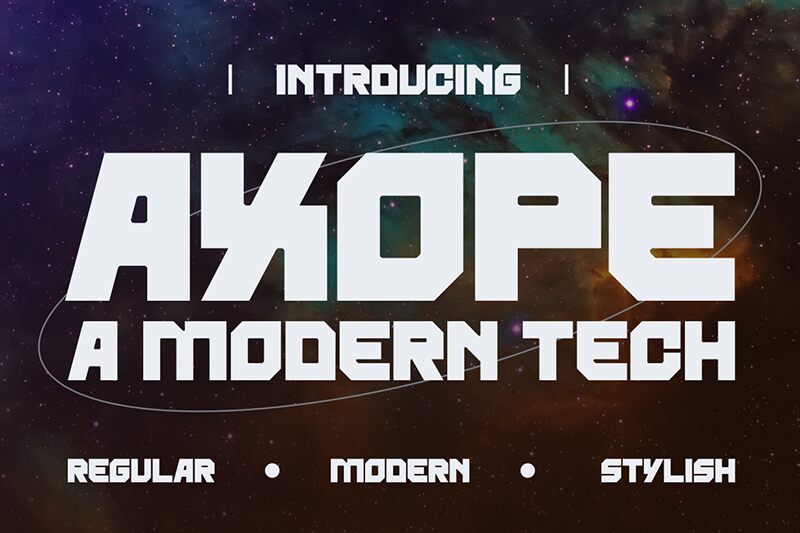
AXOPE
Axope font by Gilang Ternadho of Maikohatta is a bold techno display font with a unique futuristic and geometric personality. With an industrial feel enhanced by the angular letter build, the font features a bold modern aesthetic visual. Its structure immediately draws attention with its one-of-a-kind characteristic letters that look like nothing close to traditional or classic. Possible projects with Axope are free, and it can be used within various important personal and commercial projects.
Do you want to grab attention through your poster or other printed publications? Use this display typeface sarcastically in newspapers! Other uses may include branding and logo, apparel design, games UI, TV graphics, book cover sheets titles/subtitles; they highlight their presence wherever possible! Even F1 tickets will illuminate in amazement when the font is used!